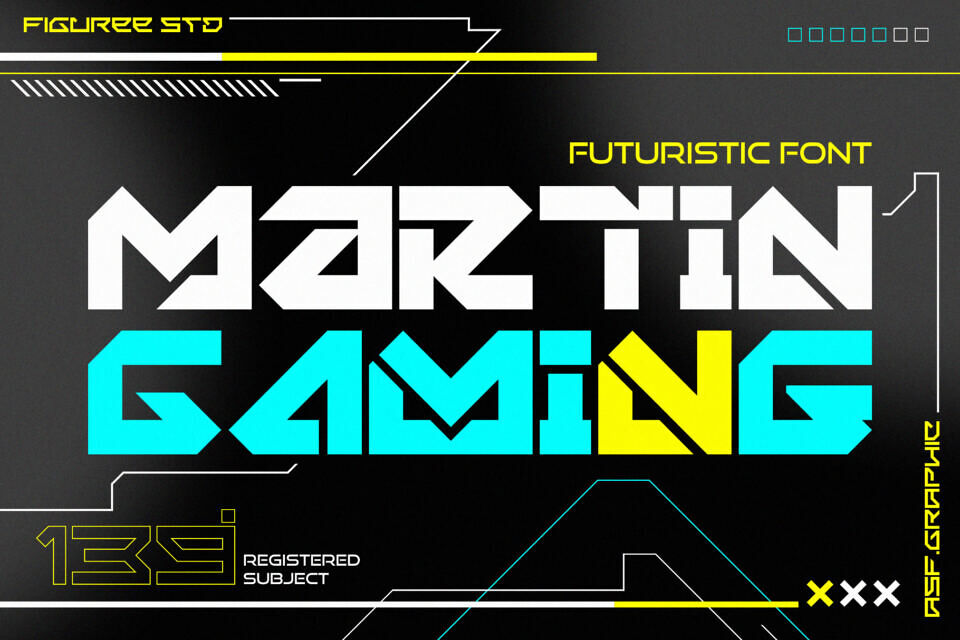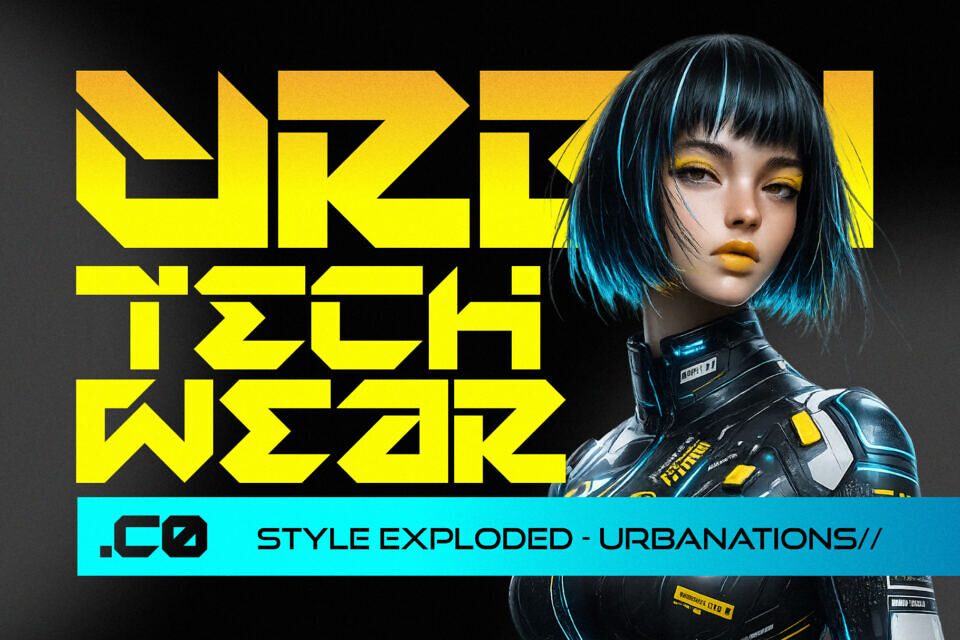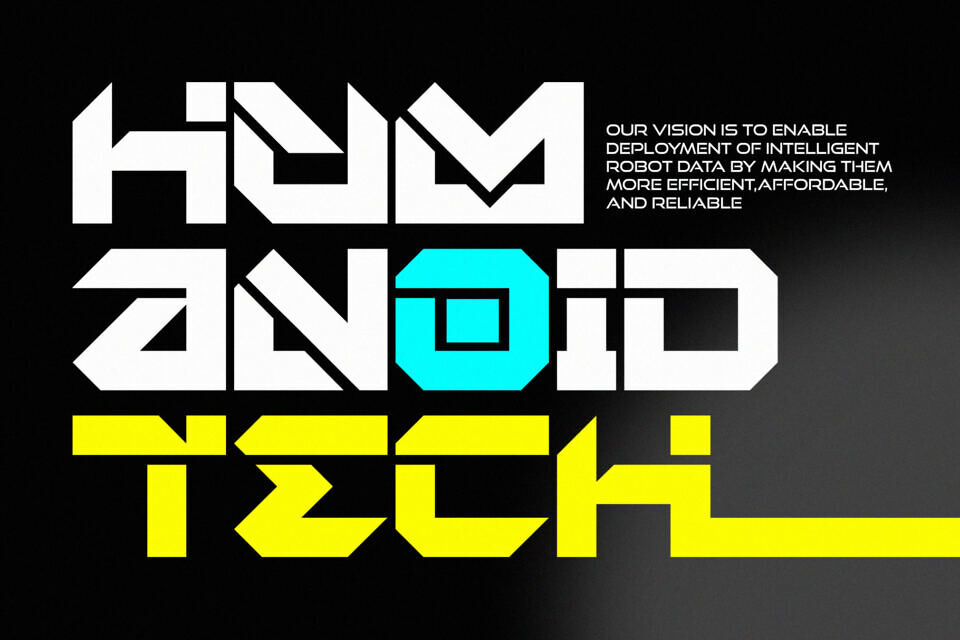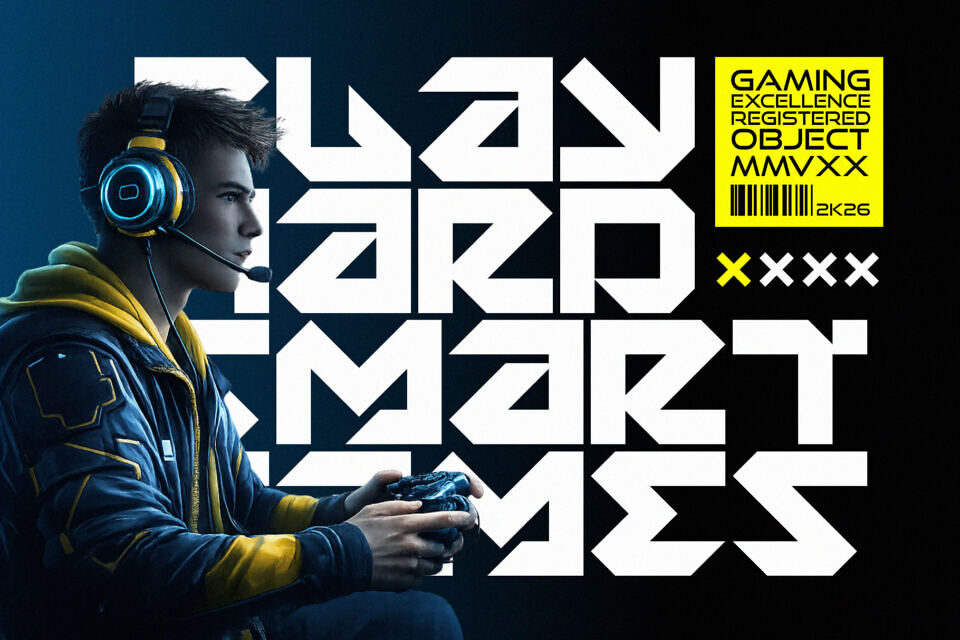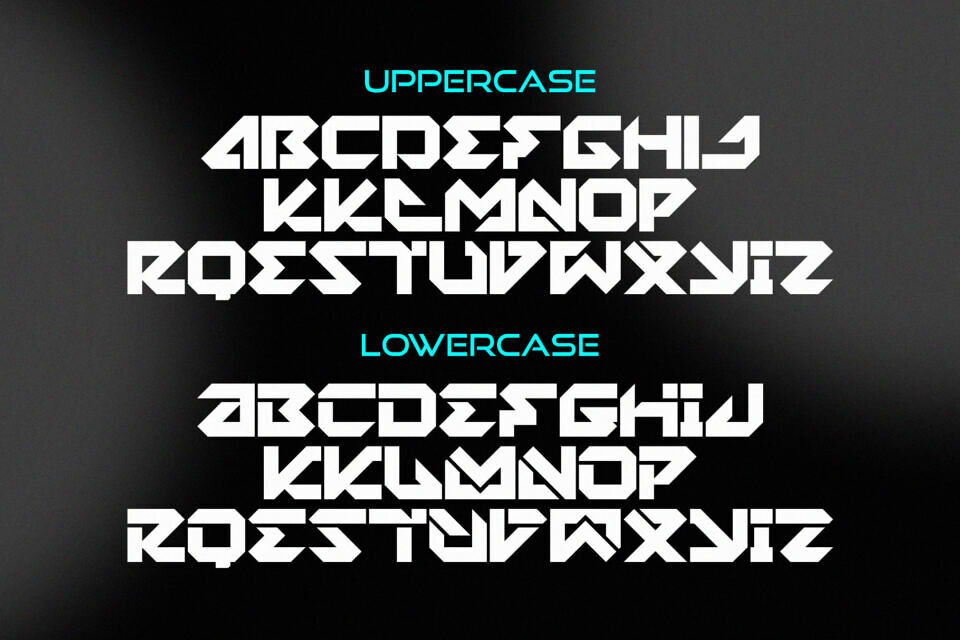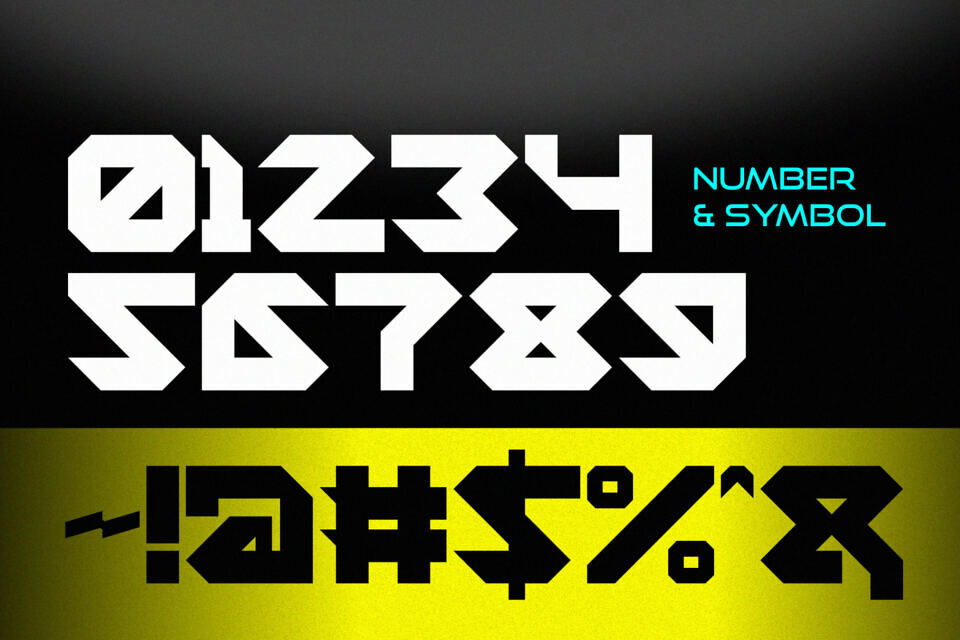
In digital branding, typography plays a crucial role, especially in gaming and tech. The Martin Gaming font is designed for creators who want to make a bold statement. With its sharp lines and modern look, it’s perfect for esports, gaming logos, and innovative projects.
This font embodies the digital world’s energy, making it ideal for building a gaming brand, designing eye-catching thumbnails, or creating futuristic posters that leave a lasting impression.